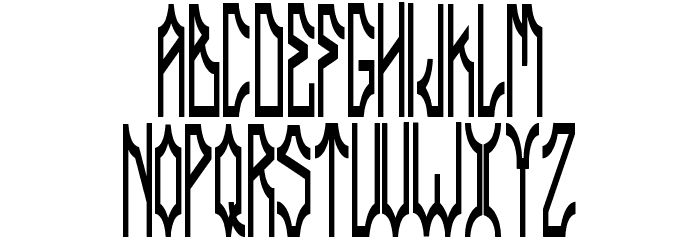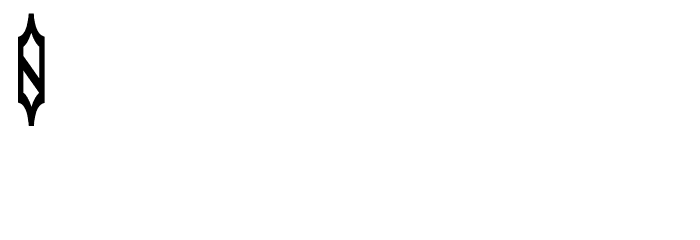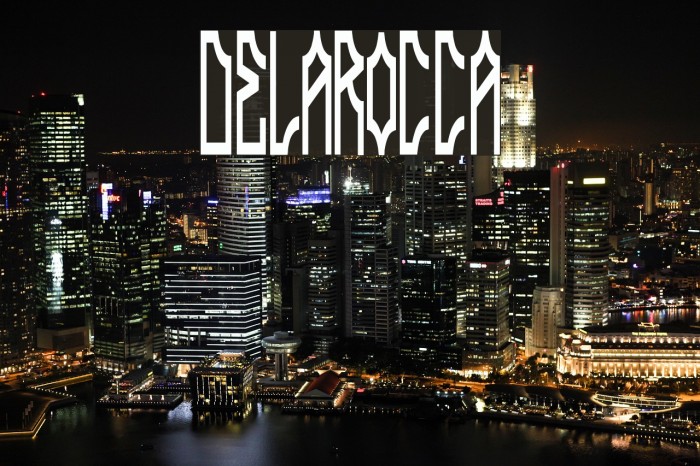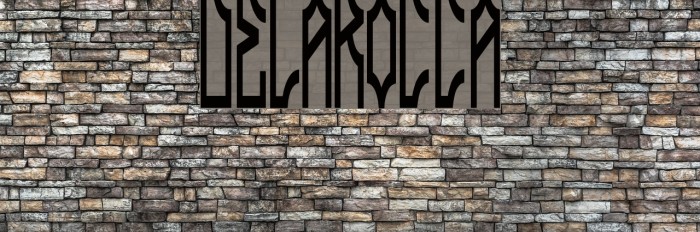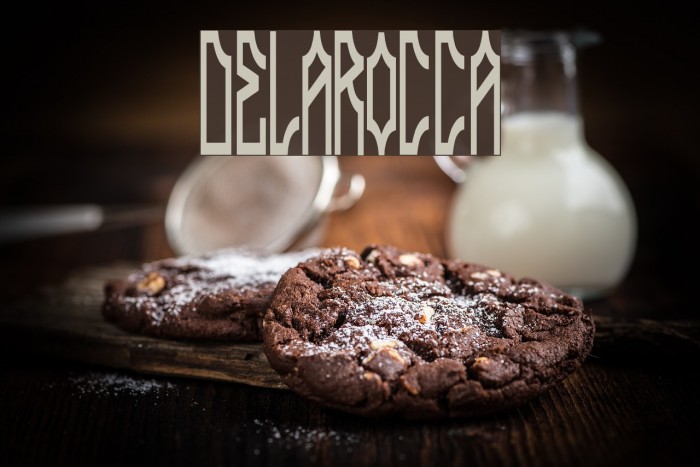
DELAROCCA Font
This font features a unique and bold design with a geometric and angular style. The characters are constructed with sharp edges and straight lines, creating a futuristic and modern appearance. The uppercase letters are particularly striking, with a consistent height and width that gives a uniform look. The font lacks lowercase letters and numbers, focusing solely on uppercase characters. The overall design is highly decorative, making it suitable for attention-grabbing headlines or logos. Its distinct style conveys a sense of innovation and creativity.
A bold, geometric font with sharp edges and a futuristic style.
- Proposed Projects: Ideal for futuristic branding, sci-fi themed projects, or modern art posters.
- Overall Style: Futuristic, Modern